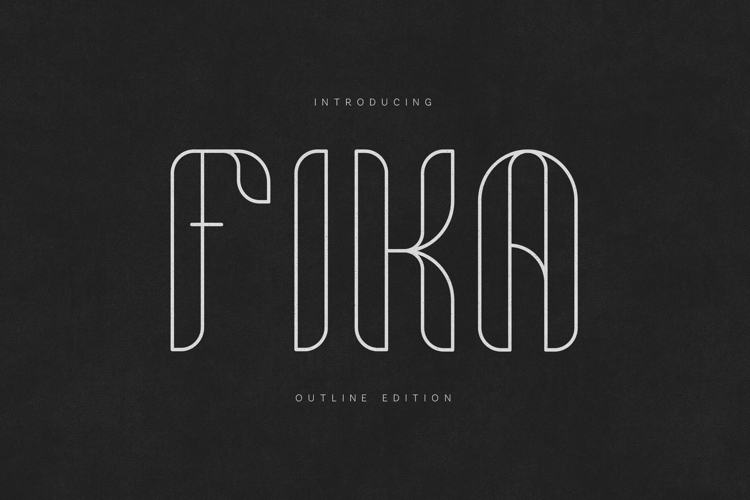
Fika Outline Font Art Deco Display Typeface
FIKA – Outline Edition is a refined Art Deco inspired display typeface designed for high-end branding and editorial impact.
With its vertical elegance, sculpted curves, and double-line outline construction, FIKA brings timeless glamour into modern design systems.
It feels cinematic. Architectural. Sophisticated.
Perfect for bold headlines, luxury logos, fashion campaigns, and statement typography.
✦ Features• Uppercase & Lowercase
• Art Deco Inspired Letterforms
• Elegant Outline Construction
• Numbers & Symbols
• Balanced Kerning
FIKA works beautifully in large sizes where its outline detail can truly shine.